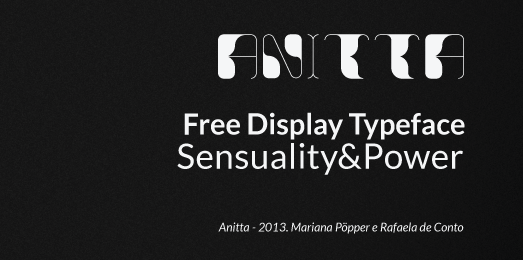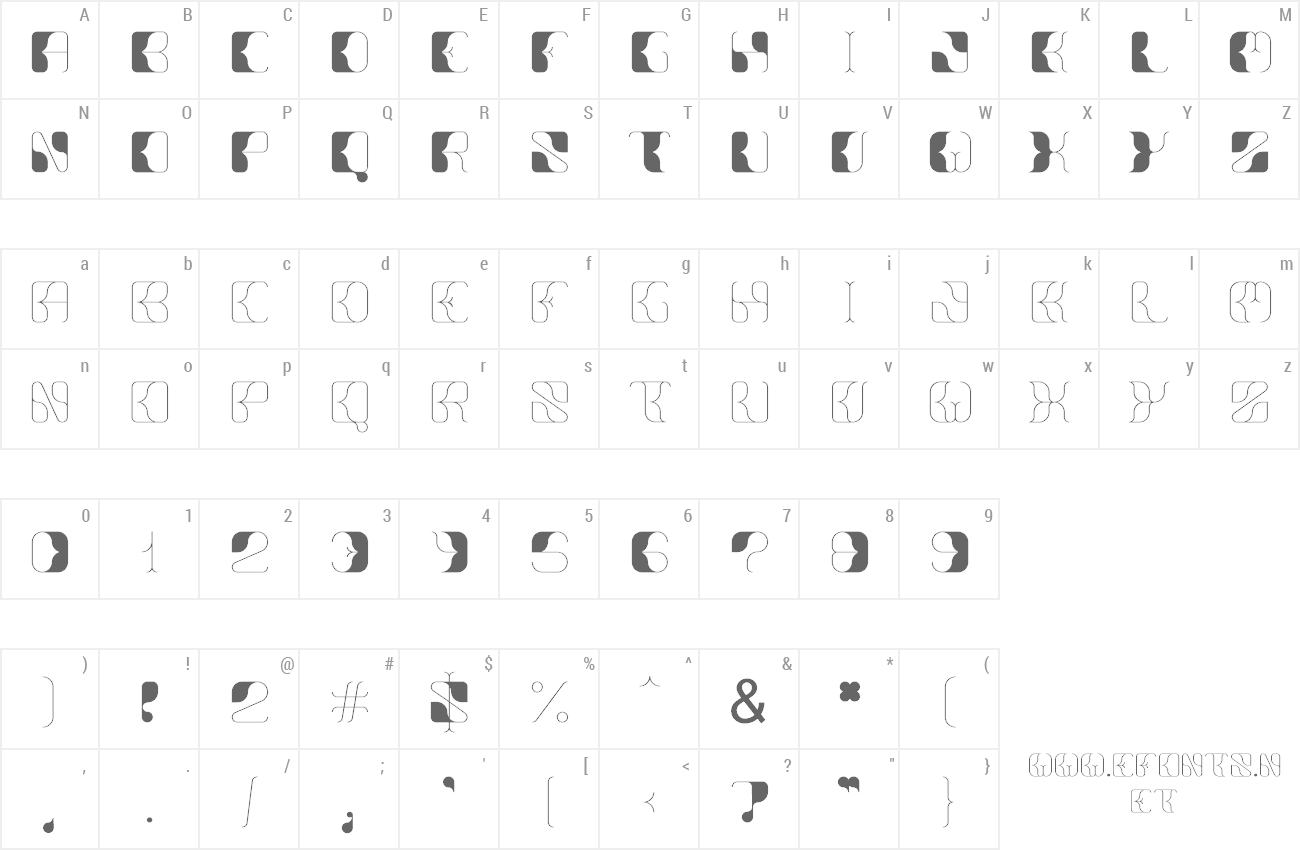
Font name: | Anitta |
Author: | Rafaela de Conto |
Note by Rafaela de Conto | |
Anitta is a group project developed for the Typography class in the Design course of the Universidade Federal de Santa Catarina. As students we love to find free fonts for download to use in our academic projects, so we decided to publish it as a freeware typeface. It means that you can use it for non-commercial and commercial work. Rafaela de Conto and Mariana Pöpper |